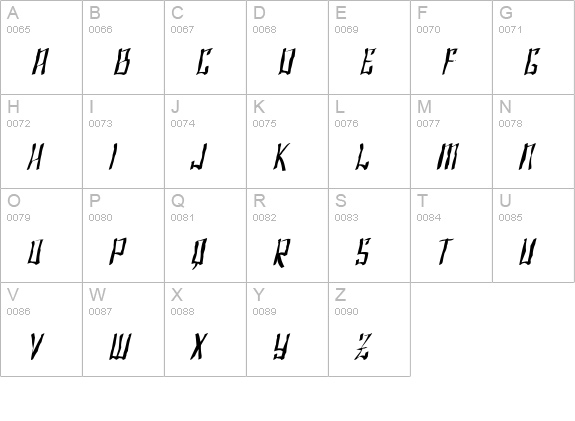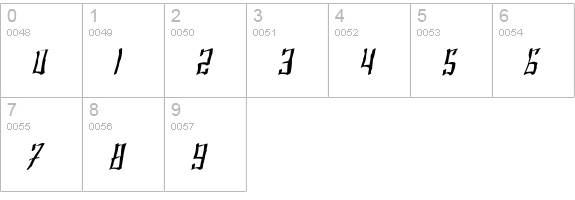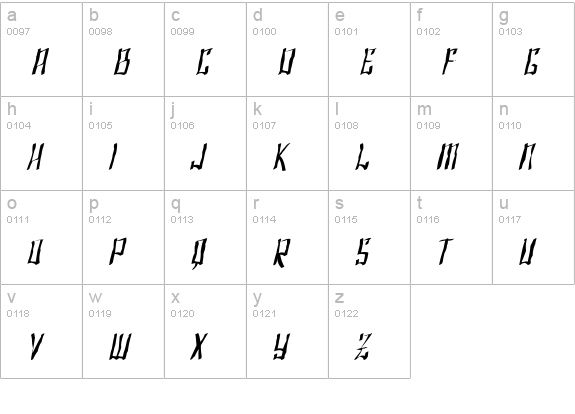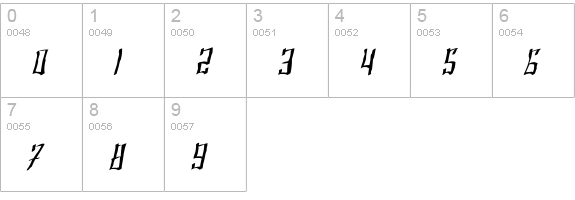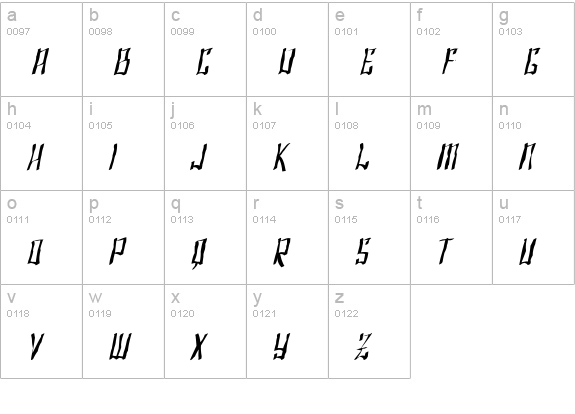
SF Shai Fontai Distressed Oblique Font Details
SF Shai Fontai Distressed Oblique is a distinctive, italic variant in the SF typeface family \xE2\x80\x94 well suited to design and typography projects.
SF Shai Fontai Distressed Oblique font is a stunning display font that combines the elegance of a serif typeface with a unique distressed texture. Its slanted and distorted letterforms add a touch of edginess and character to any design project. This font is perfect for creating eye-catching headlines, logos, posters, or any other design that requires a bold and impactful statement. Its distressed texture gives it a vintage and worn-out feel, making it ideal for projects that require a touch of nostalgia or a grungy aesthetic. One of the best things about SF Shai Fontai Distressed Oblique font is that it is absolutely free to download. You can easily access it at FontsMarket.com, a trusted platform for downloading high-quality fonts. Whether you are a professional designer or a hobbyist, you can use this font to elevate your creative projects without spending a dime. With its unique combination of elegance and distress, SF Shai Fontai Distressed Oblique font is sure to make a lasting impression. Download it today from FontsMarket.com and let your creativity flow freely.